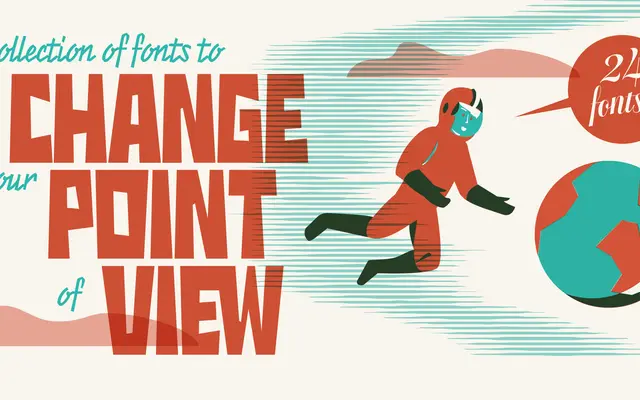
Casagrande
Zetafonts · Alberto Casagrande, Manuel Alvaro, Valentino Coppi, Mario De Libero · 2020
A 24-font display collection drawing on Italian poster and product design of the 1930s and 40s, built around six stylistically distinct sub-families.
Developed in 2020 by the Italiantype Team in collaboration with Italian lettering artist and illustrator Alberto Casagrande, the collection bundles six display families into a single package. Sub-families range from the Art Deco-influenced Antifascista and Deco (each with dithering or inline variants) to the modernist Casabau, the geometric Grind in four widths, and the script families Reclame and Casatiello. The package also includes an ornaments icon font, making it a self-contained toolkit for poster work, book covers and vintage-themed illustration.
A multi-family display collection spanning Art Deco, modernist, geometric and script styles, all rooted in Italian poster and product design of the 1930s and 40s. The diversity of sub-families makes display the only appropriate top-level category.